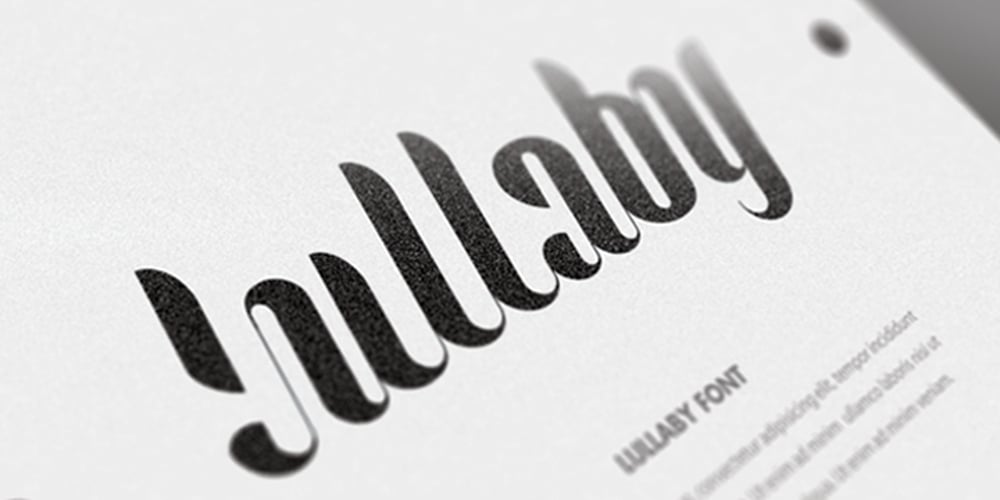
Lullaby Font Family was designed by Ania Szerszen and published by Ania Szerszen. Lullaby contains 1 styles and family package options. Lullaby is a display font that works great for headlines, posters or logotypes. With its regular rhythm, soft lines, some non-standard ligatures and two versions of each character (caps as alternatives), it gives many possibilities for any kind of typographic artworks. It works best with auto kerning in OpenType savvy applications.